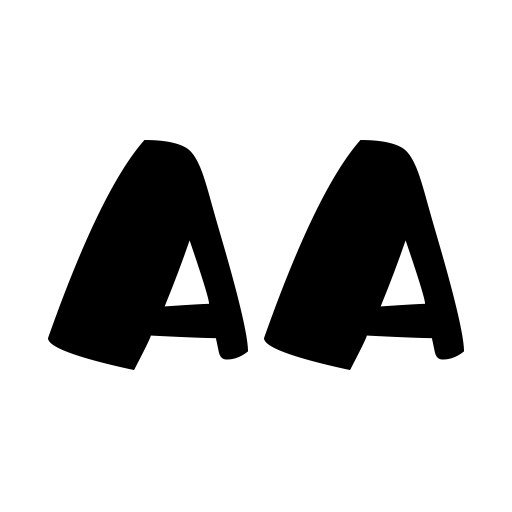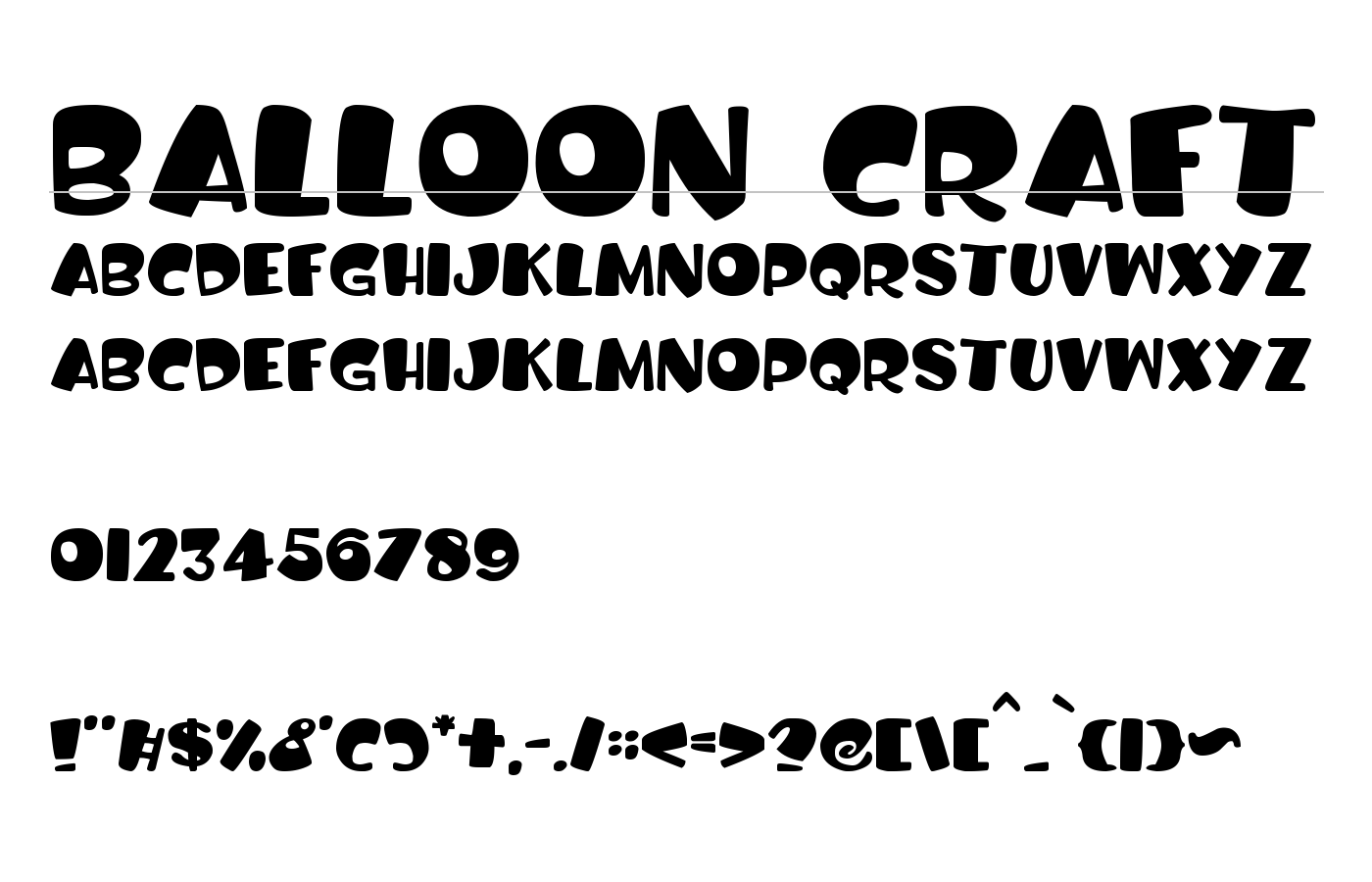
Balloon Craft is a playful and bold sans serif font characterized by its rounded, chunky letterforms that resemble inflated balloons. Its heavy weight and lively curves give it a fun, approachable vibe, making it perfect for children's books, party invitations, and whimsical branding that aims to convey joy and creativity. This font works best in headlines and display uses where a cheerful, friendly impact is desired.
Balloon Craft Font
About Balloon Craft Font